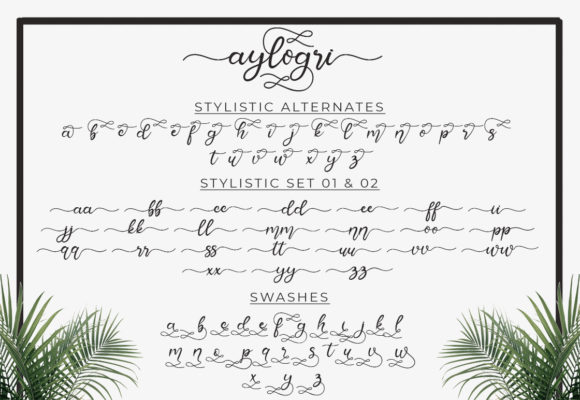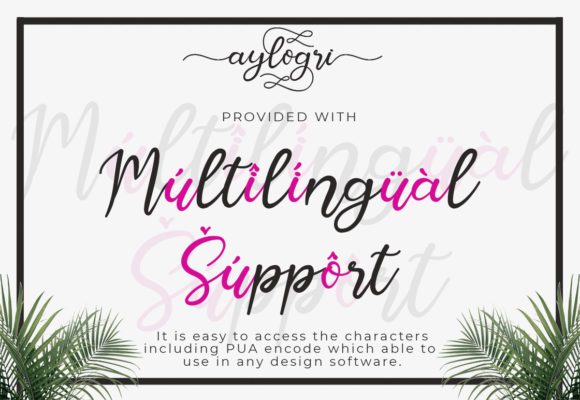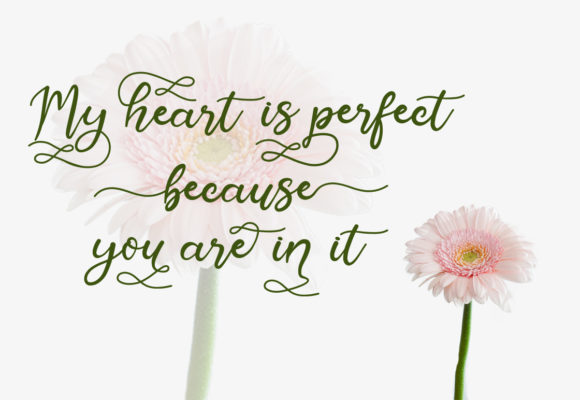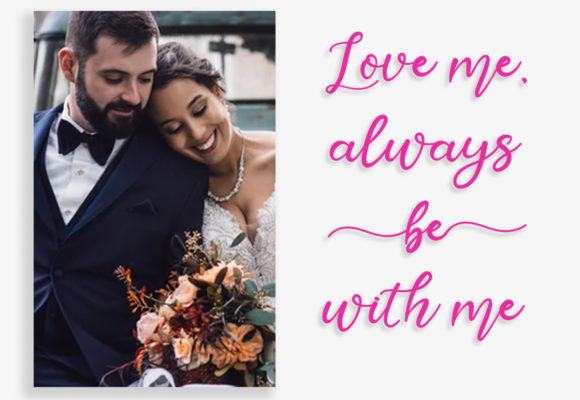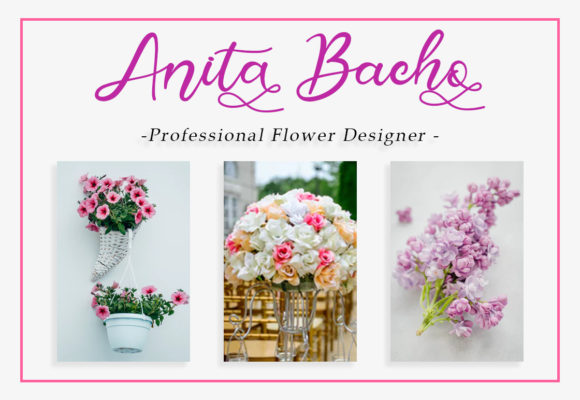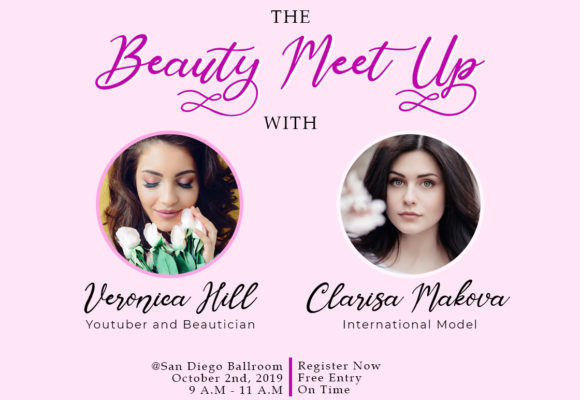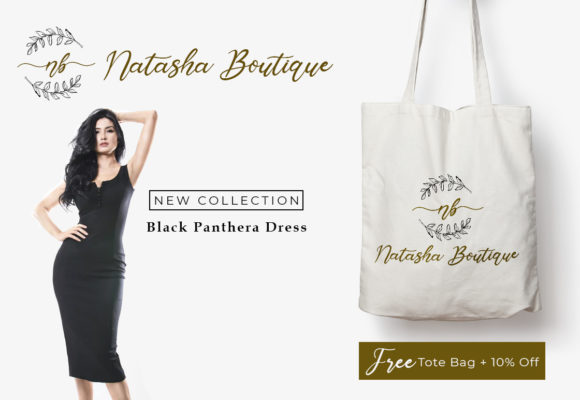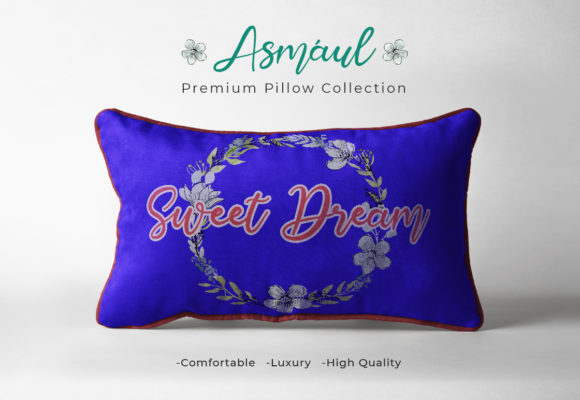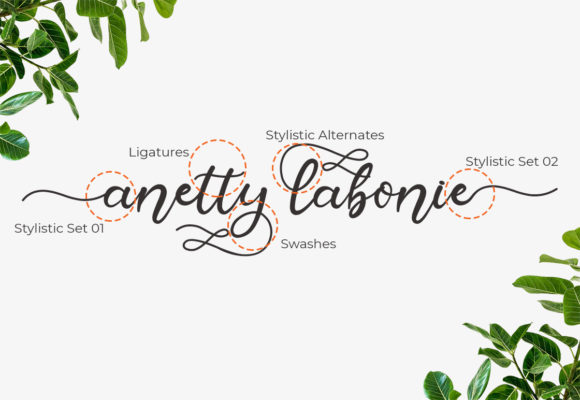
HomeScript FontsAylogri Font Script Fonts Aylogri Font FacebookXPinterestWhatsApp Aylogri Font Poster 2 Aylogri Font Poster 3 Aylogri Font Poster 4 Aylogri Font Poster 5 Aylogri Font Poster 6 Aylogri Font Poster 7 Aylogri Font Poster 8 Aylogri Font Poster 9 Aylogri Font Poster 10 Aylogri Font Poster 11 Aylogri Font Poster 12 About Aylogri Font Aylogri is a script font that has beautiful flowing characters. It is perfect to show off your romantic side! DOWNLOAD NOW People also explored Horstail Font Ramayana Font Sienta Font Milky White Font Betharia Classy Font Shutter Times Font AZ Script Font Ravenstonedale Informer Font 431 0 TagsAylogri Font Previous articleMaheswari FontNext articleAttycha Font LEAVE A REPLY Cancel reply Comment: Please enter your comment! Name:* Please enter your name here Email:* You have entered an incorrect email address! Please enter your email address here Website: Save my name, email, and website in this browser for the next time I comment. Personal Use Free JVNE Smoothdron Personal Use Free Read more about this font Shrag Script Personal Use Free Read more about this font Berry Personal Use Free Read more about this font Carnivals Personal Use Free Read more about this font BLOG Best Fonts for YouTube Videos: Make Your Thumbnails Stand Out Best Fonts for YouTube Videos: Make Your Thumbnails Stand Out Choosing the right font can make a massive difference in how your YouTube videos perform.... 5 Fonts That Will Dominate Design Trends in 2026 Free vs Paid Fonts: Why Investing in Premium Fonts Is Worth It How to Cut Any Font on Cricut: Convert a Font to SVG (Free)